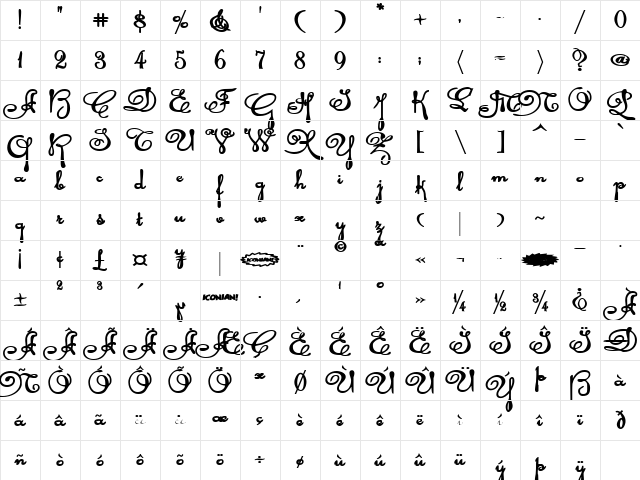
Complete Rhalina Bold Expanded glyph index. Displaying only characters natively supported by Rhalina Bold Expanded font.
Rhalina Bold Expanded is a composed and adaptable typeface that performs quietly and consistently across a wide range of design contexts. Its bold stroke weight gives it real presence on the page.